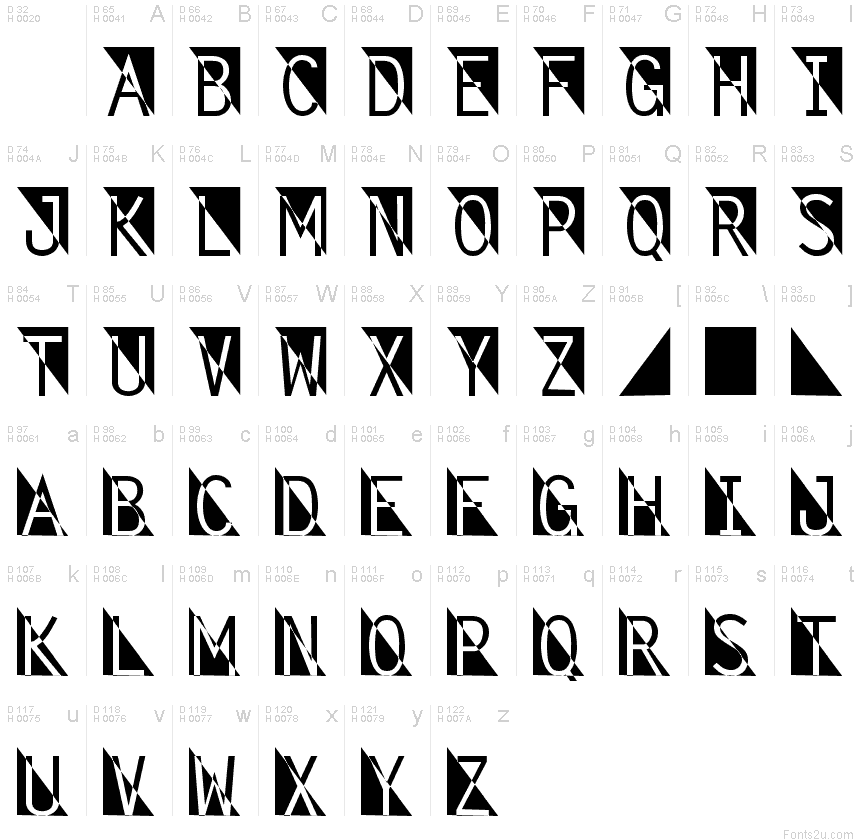
Fantomet
Fantomet font by Listemageren is a free decorative display typeface that slices every letter into bold black and white triangles, like a spotlight cutting through a dark stage. The tall, lean forms stay clean and legible, while the razor-sharp diagonals create a jittery, kinetic rhythm that instantly grabs attention and feels slightly mysterious.
Using Fantomet, titles look more like graphic objects than plain text, so it shines on posters, album covers, experimental logos, zines, event flyers, and sci‑fi or horror branding. This free font works best at large sizes; pair it with a simple sans serif for body copy to let its angular drama stand out.